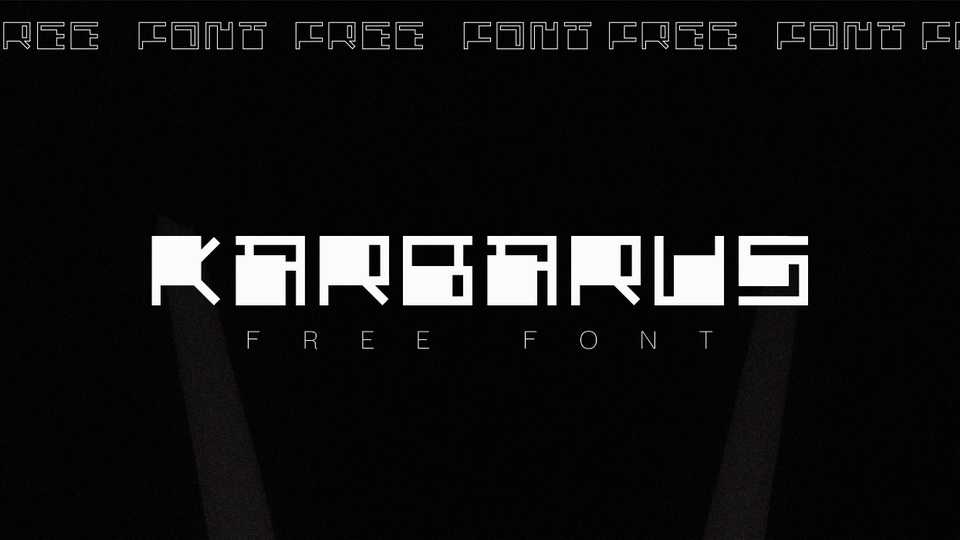
Download Karbarus font, a bold display typeface created with a generative abstract look in mind. Karbarus is an experiment with abstract shapes in Illustrator, trying to create a generative look for all the letters.
Designer: Luis H. J. Rapp